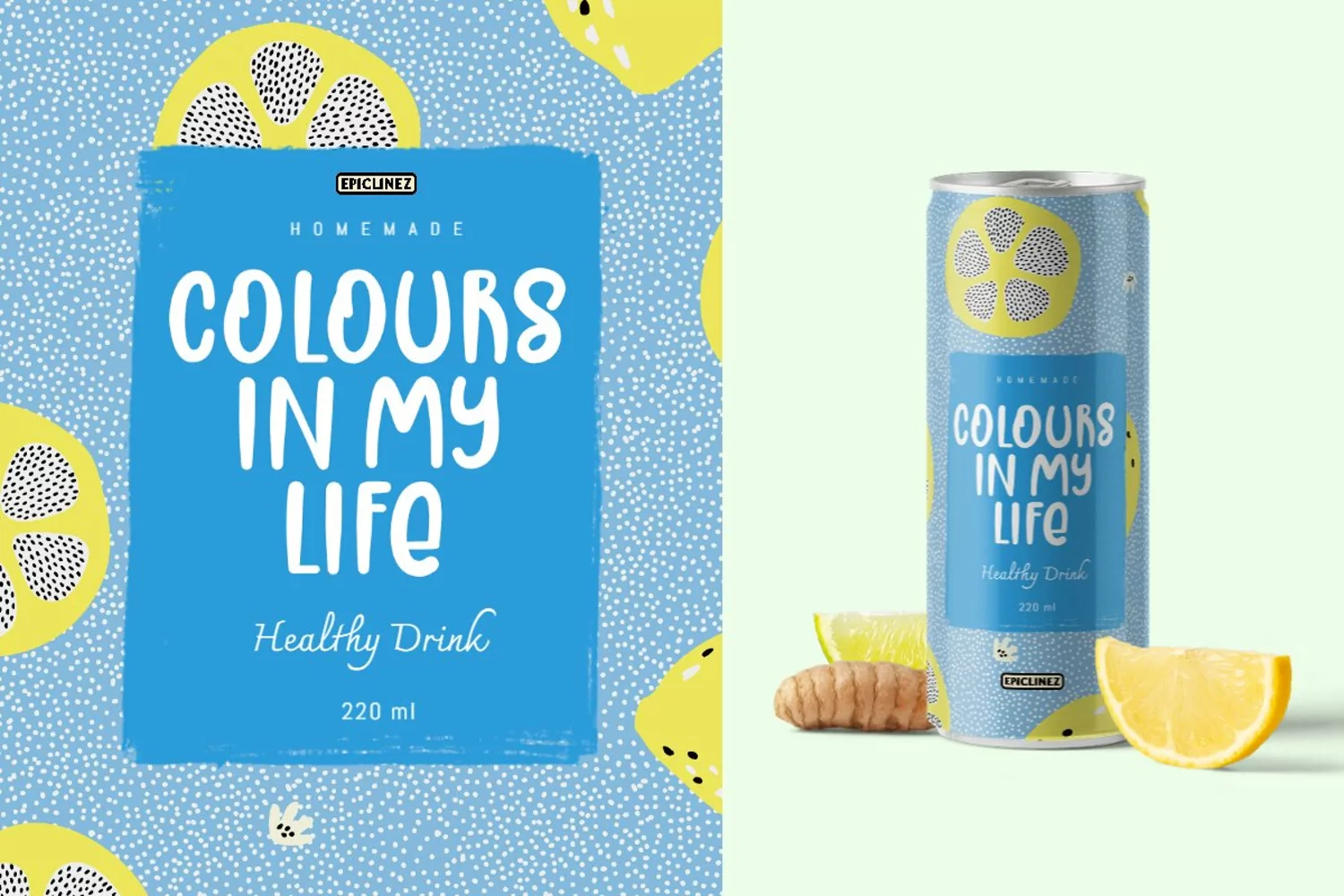
Fruit Of Heaven - A Fun Display Font
Fruit Of Heaven is a cute and fun display font. This all caps font will elevate your crafting projects to the new level!